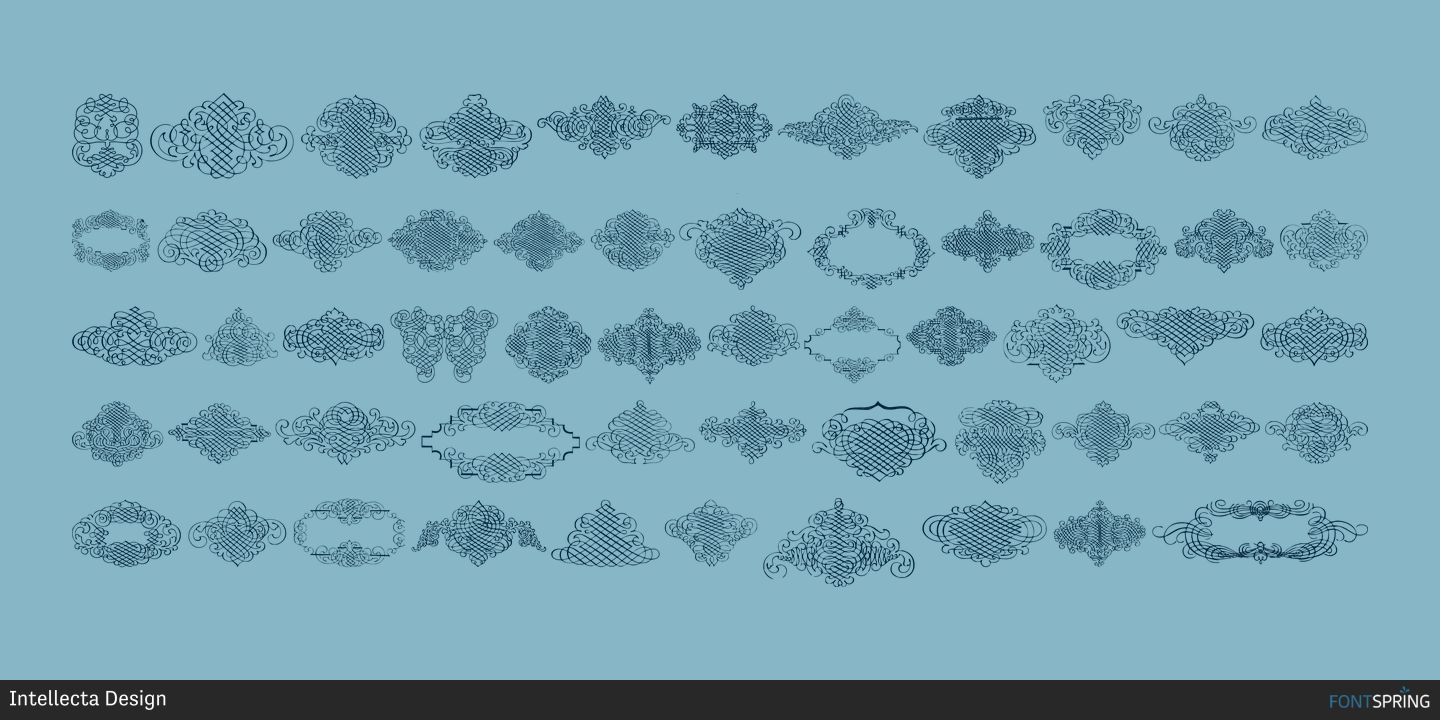
George Bickham Rough Ornaments is a dingbat font published by Intellecta Design.
a ready to use font with a set of well crafted ornaments inspired by the monumental work of George Bickham at Universal Penman (1733). Soon, more fonts in this collection will be available…